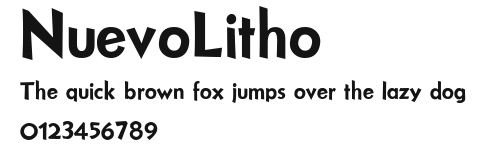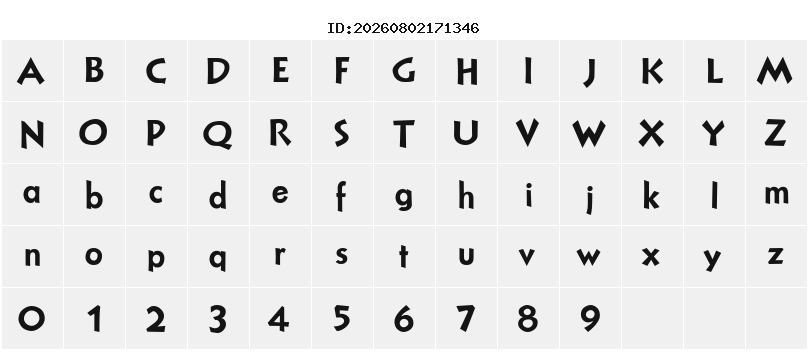
• Font Name: NuevoLitho
NuevoLitho.ttf is a modern, elegant sans-serif font designed for ultimate readability and visual harmony. Perfect for branding, headlines, web design, and print materials.